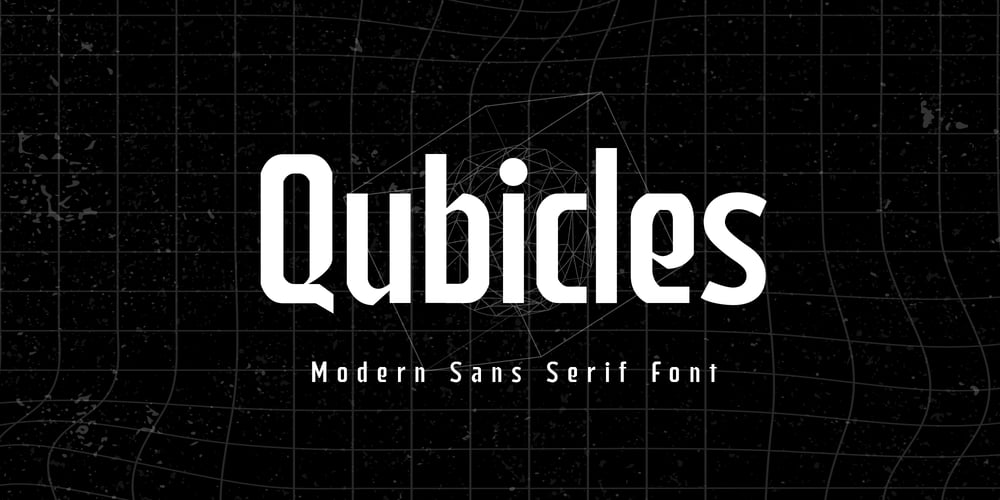
Qubicles Font Family was designed by Muhammad Afif Ersya and published by Mevstory Studio. Qubicles contains 3 styles and family package options. Qubicles Sans is a modern sans serif font designed with calligraphy style for a wide range of need. The font is suitable for any branding project like logo, t-shirt printing, sporting design, and many more. It will look assertive in a wide range of contexts.